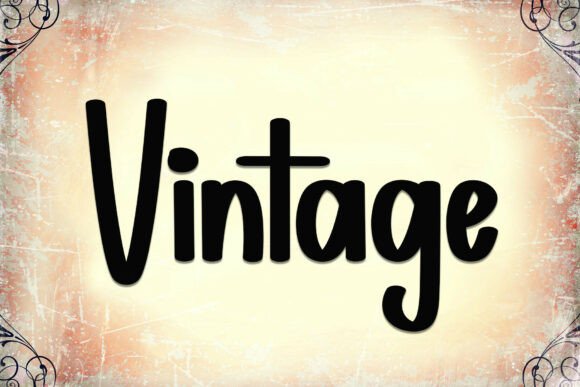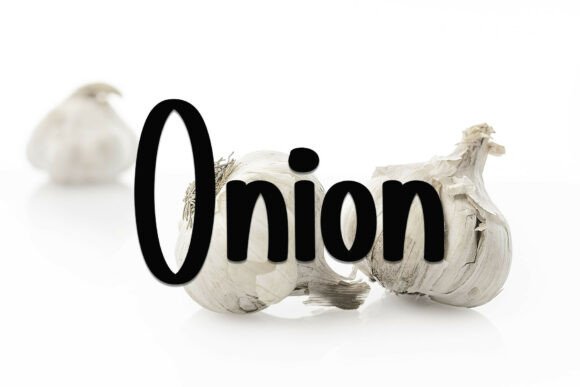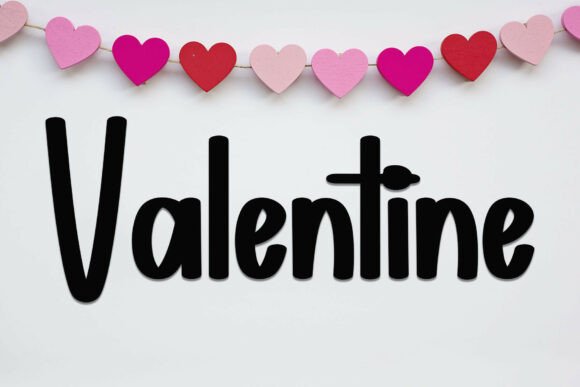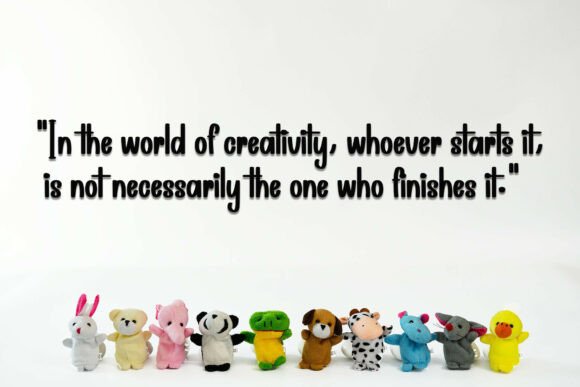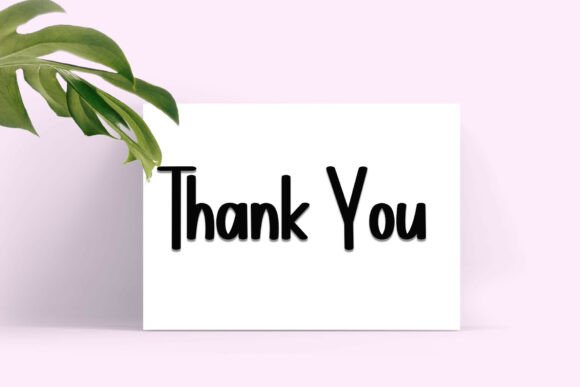
The Ultimate Summer Font: A Deep Dive into Beach Heart
Ah, the joy of searching for the perfect font for a summer-themed project! I recall working on a client’s request for a beach-inspired greeting card design. The goal was to create something cheerful, casual, and inviting. As I scrolled through font after font, I knew I needed something special. That’s when I stumbled upon Beach Heart, a delightful handwritten font that instantly captured the carefree essence of summer.
An Honest Review of Beach Heart
So, what makes Beach Heart so lovable? Let’s dive into its charming features and a few minor quirks.
- ✅ Cheerful and approachable vibe: Beach Heart’s rounded edges and tall letterforms evoke the warmth and simplicity of beachside doodles and handwritten notes.
- ✅ Perfect for casual designs: This font shines in projects that require a friendly and relaxed tone, such as greeting cards, summer quotes, social media posts, and children’s designs.
- ✅ Easy to read: Despite its playful nature, Beach Heart remains legible, even at smaller font sizes.
Minor Quirks and Limitations 🤔
- ⚠️ Limited formal applications: Beach Heart’s casual nature makes it less suitable for formal or professional projects that require a more serious tone.
- ⚠️ Some letter variations: While Beach Heart offers a range of glyphs and stylistic alternates, some users might find the selection limited compared to other fonts.
The Story Behind Beach Heart
Beach Heart was inspired by the carefree spirit of summer and the joy of handwritten notes. Its creator aimed to craft a font that would evoke the warmth and simplicity of beachside doodles, perfect for designs that require a friendly and relaxed tone.
Q: What type of projects is Beach Heart best suited for?
A: Beach Heart shines in projects that require a friendly and relaxed tone, such as greeting cards, summer quotes, social media posts, and children’s designs.
Q: Does Beach Heart offer any special features or glyphs?
A: Yes, Beach Heart offers a range of glyphs and stylistic alternates, which can be accessed through OpenType features in compatible design software.
Q: Is Beach Heart easy to read?
A: Despite its playful nature, Beach Heart remains legible, even at smaller font sizes, making it suitable for a variety of design applications.